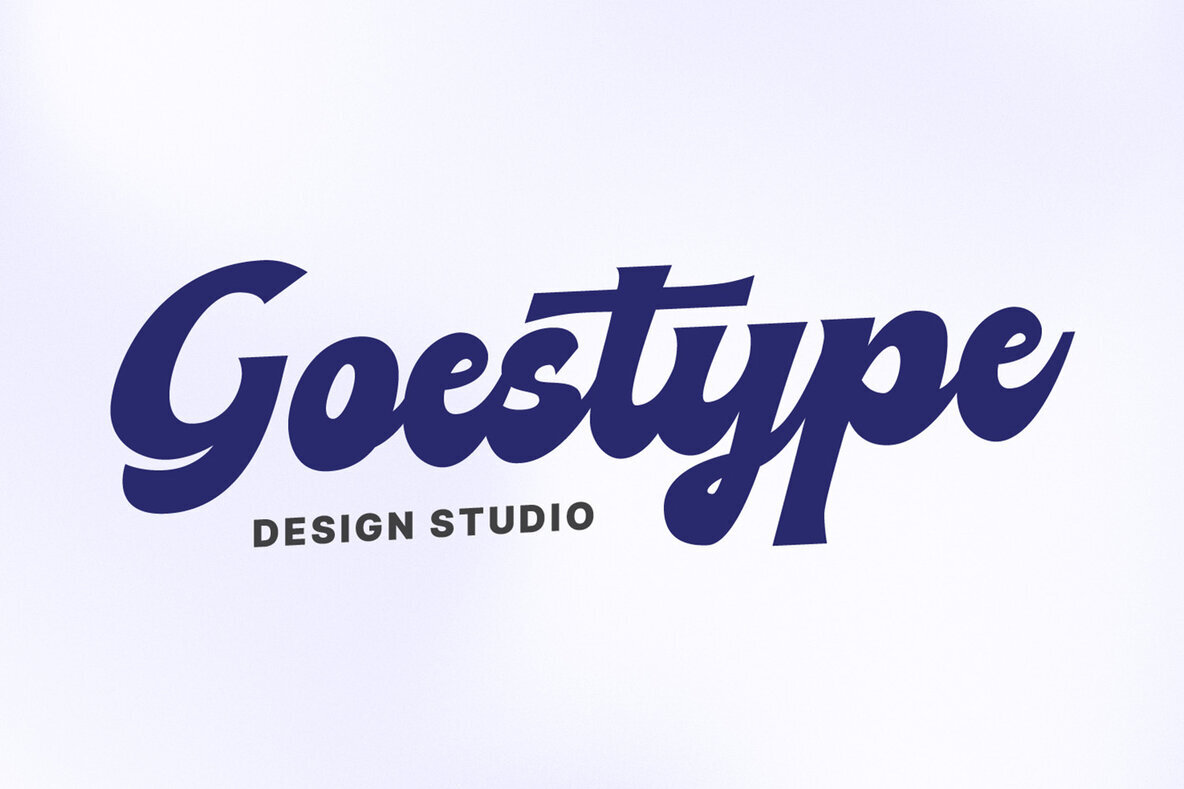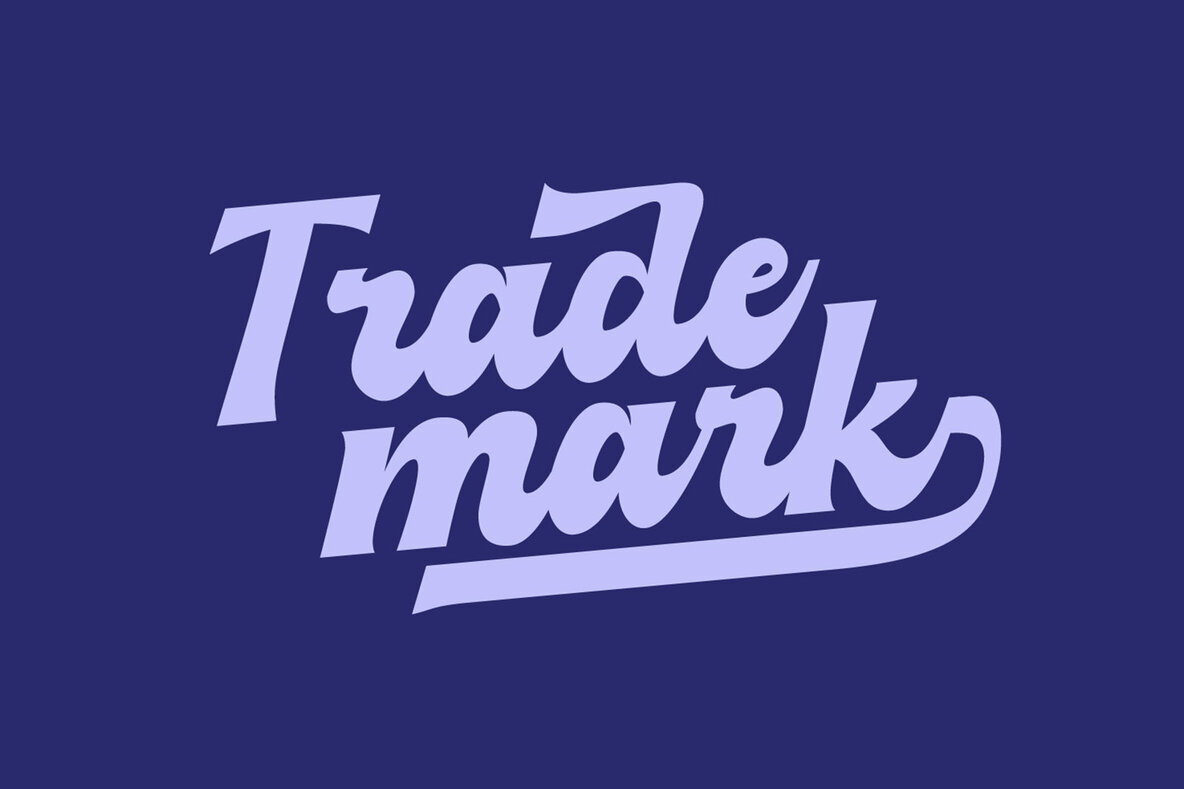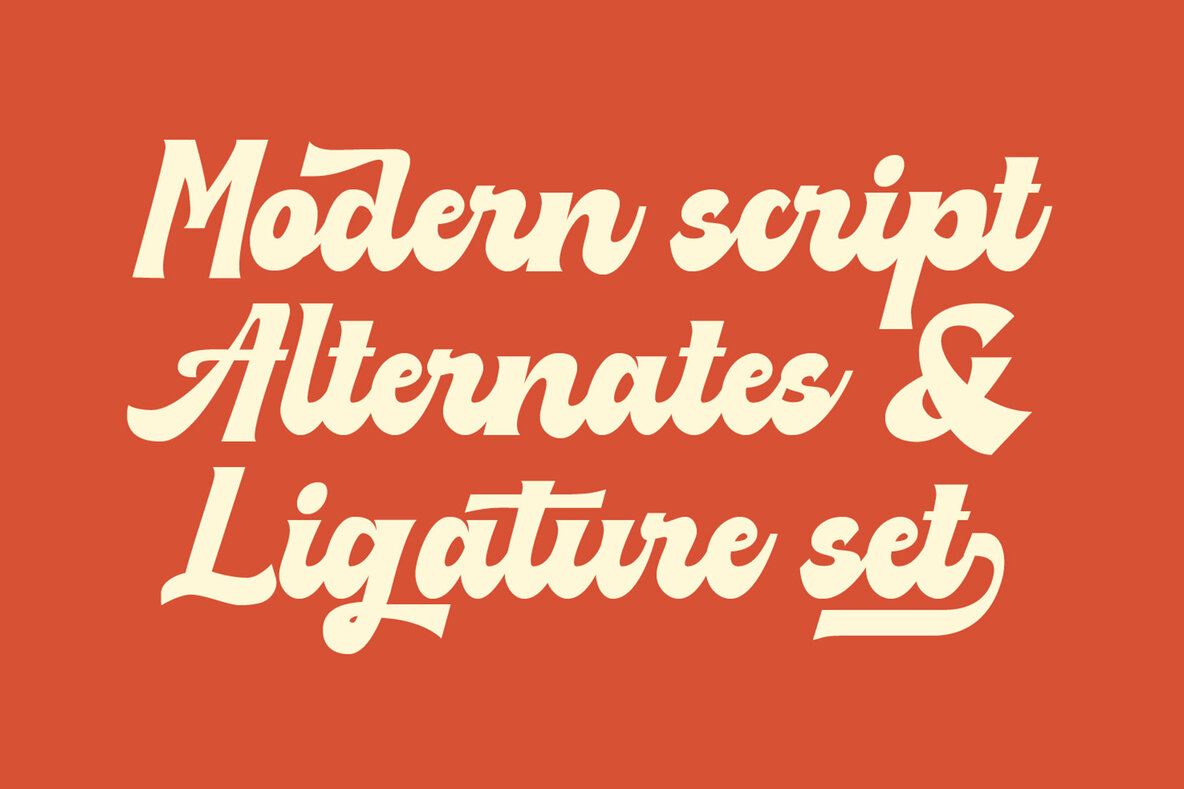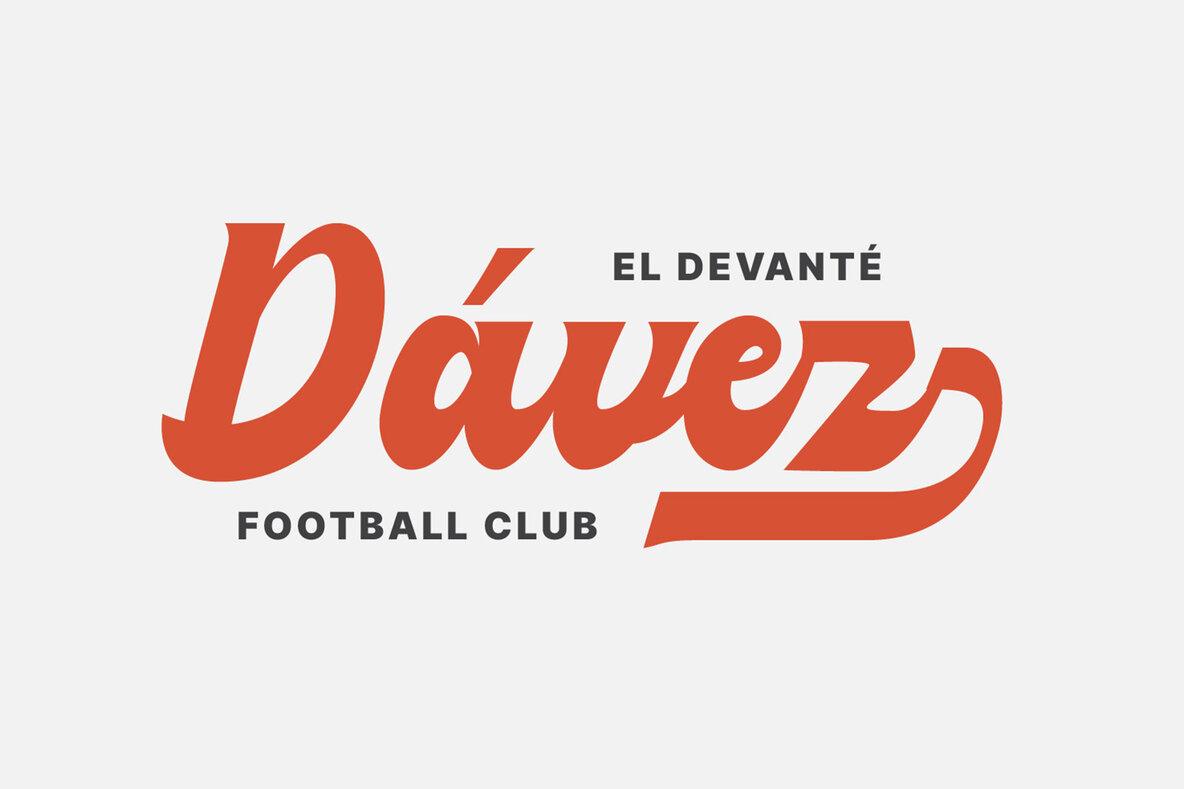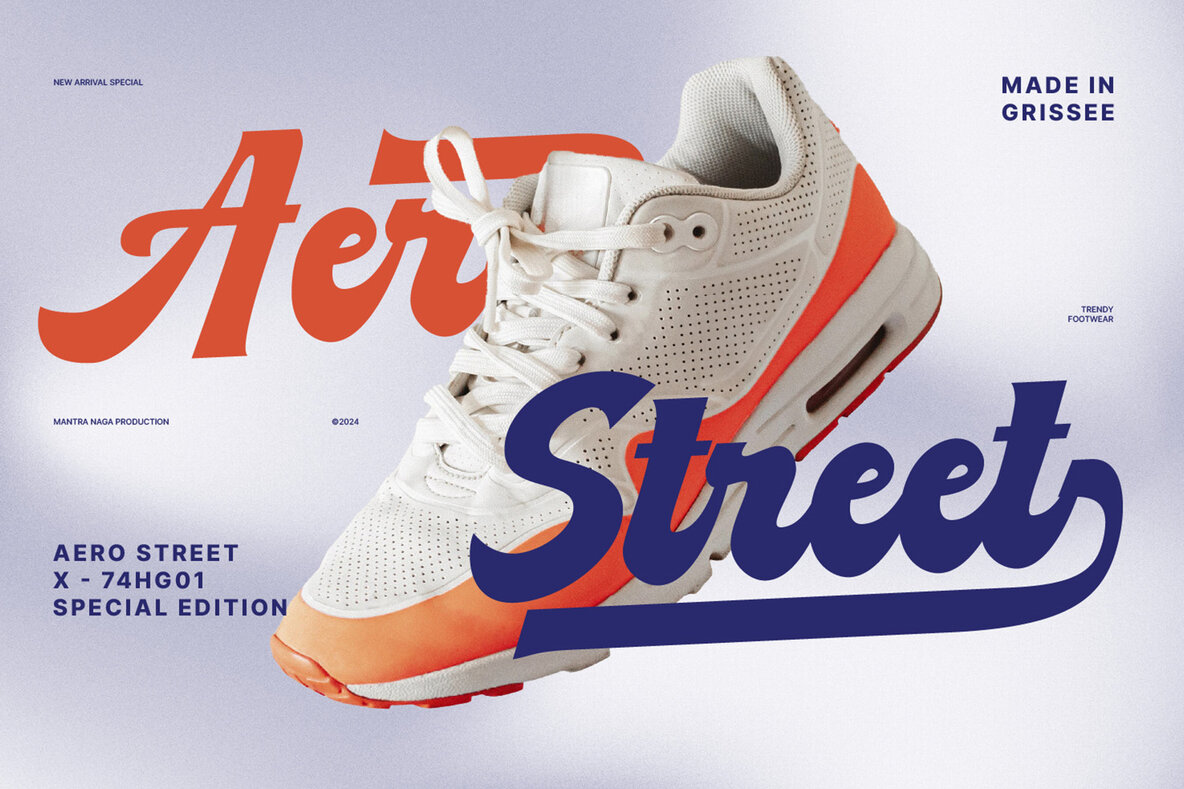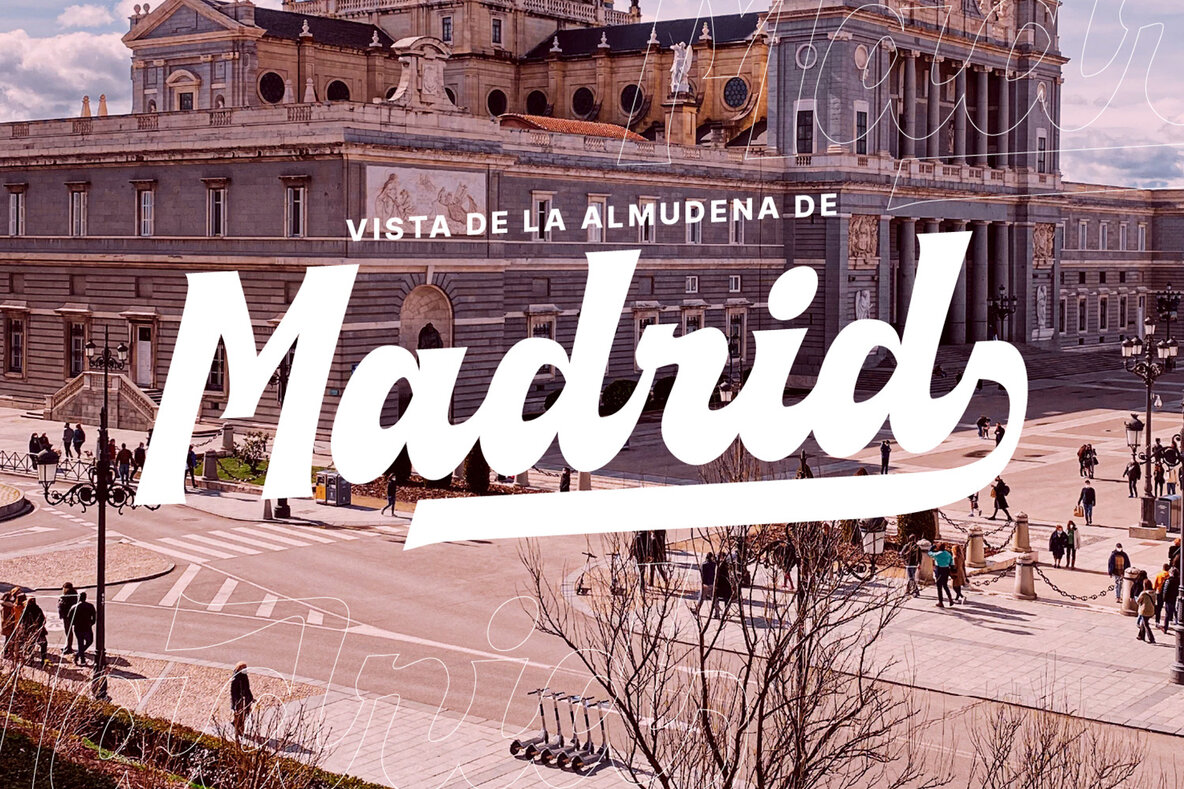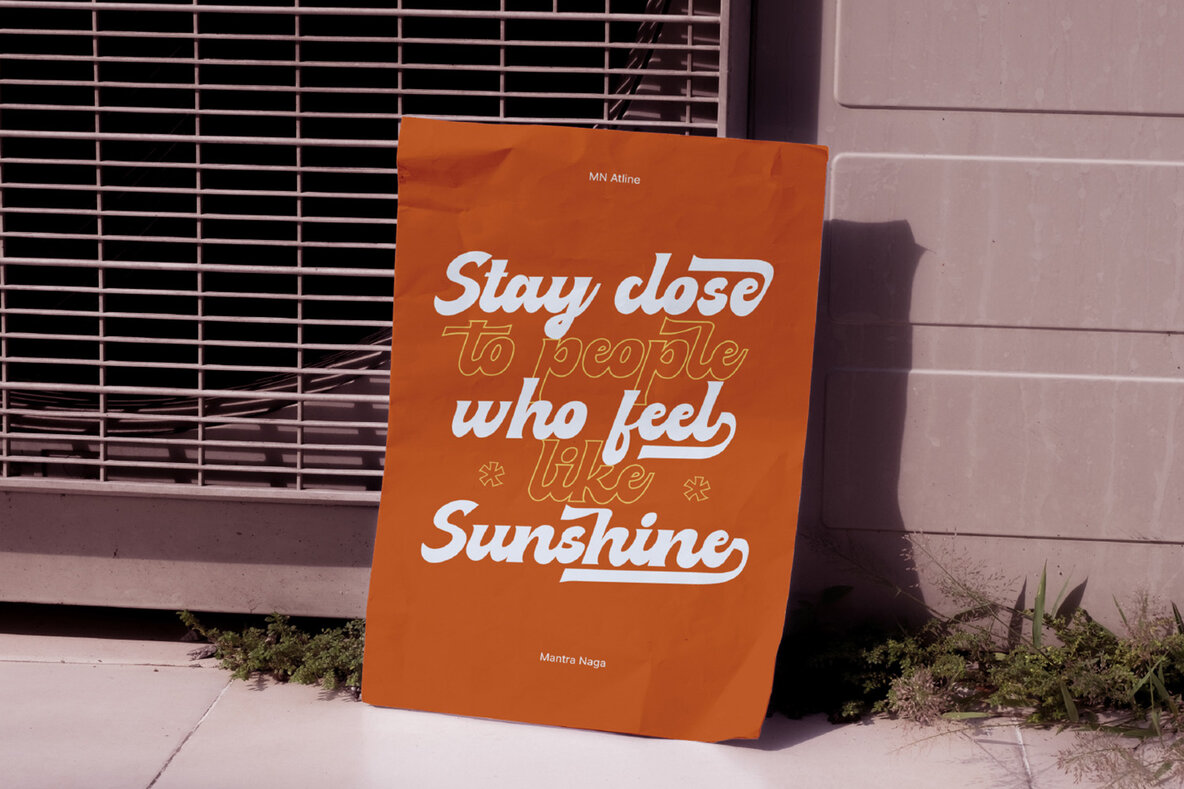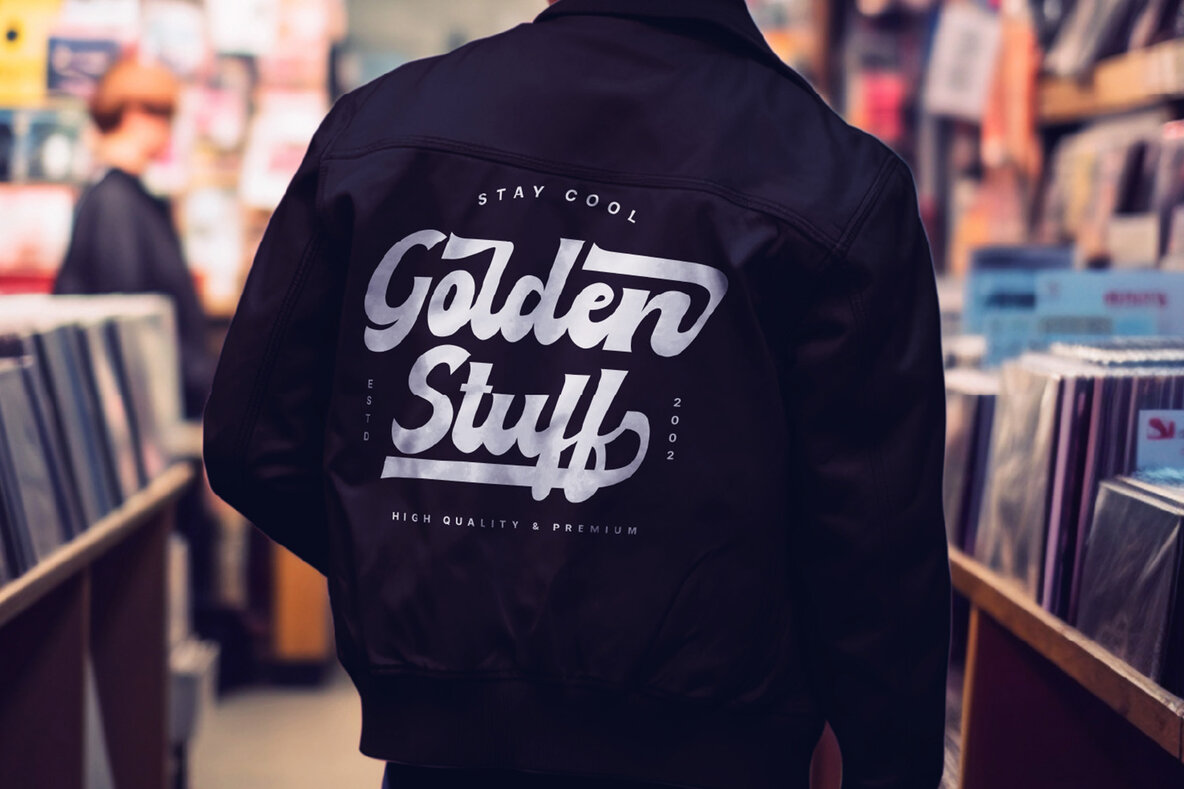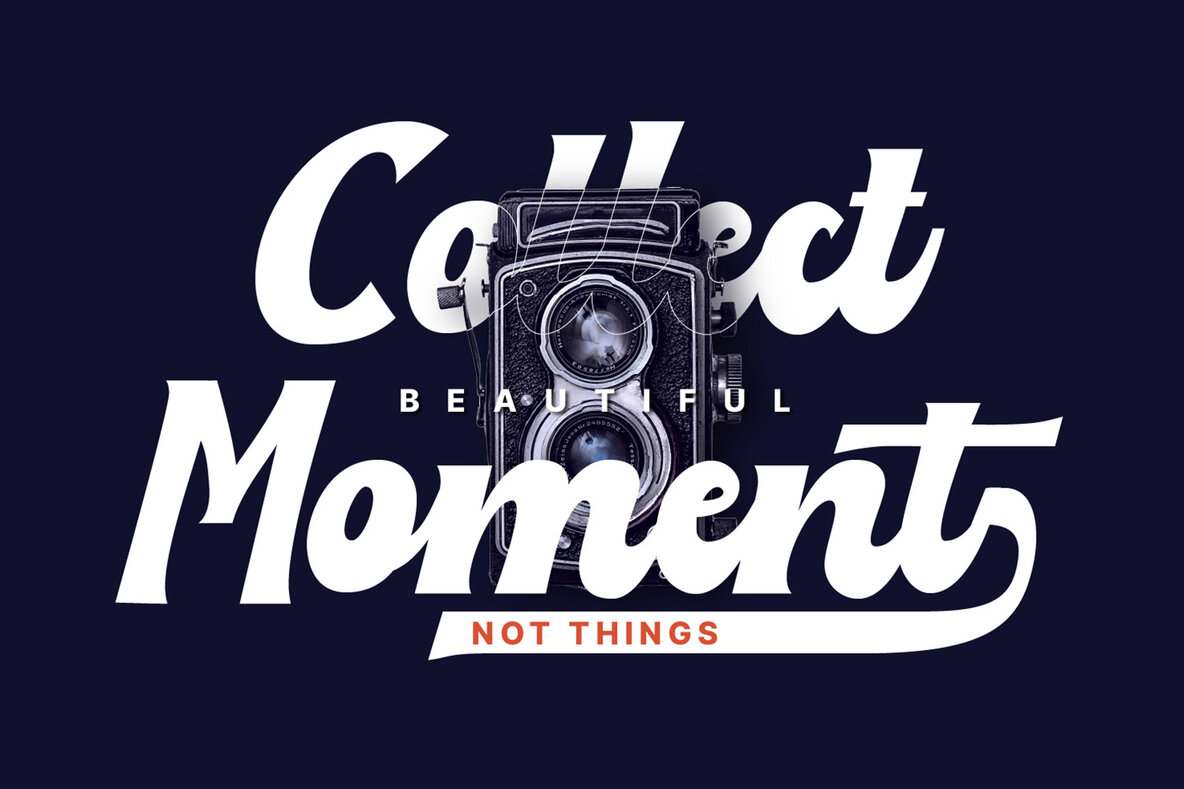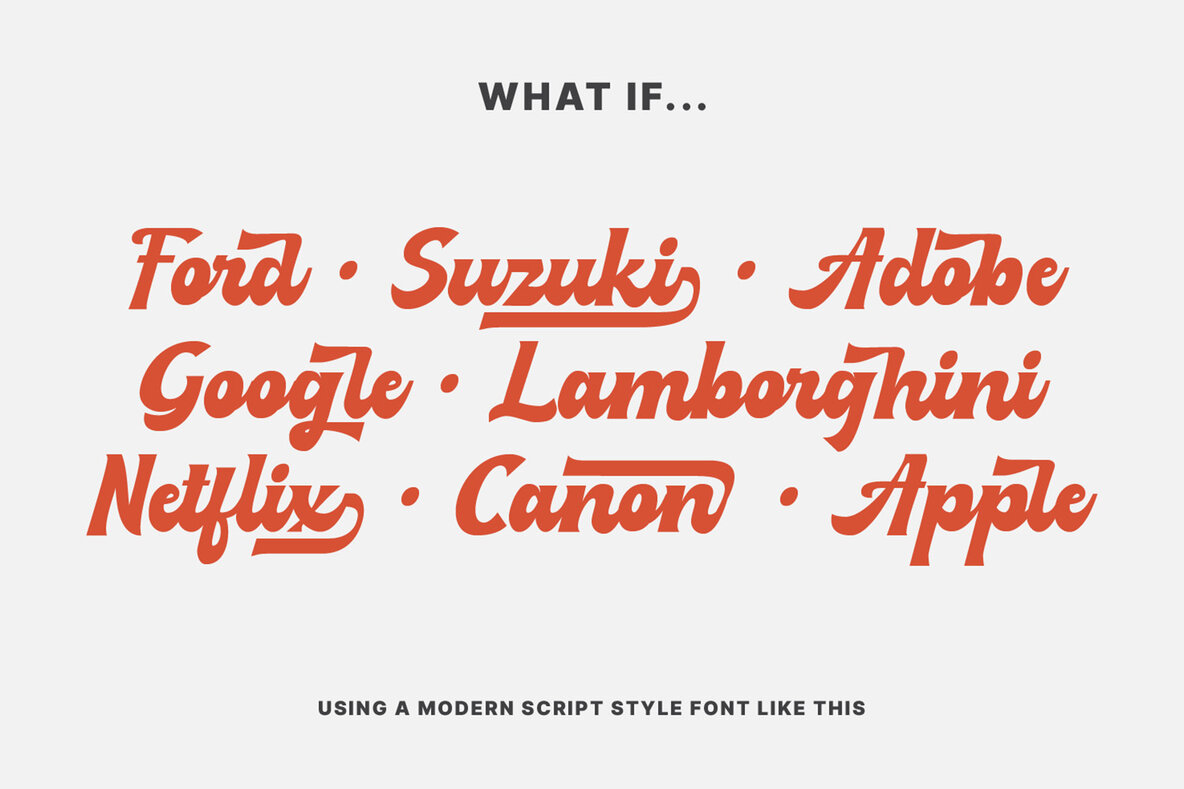
MN Atline Font
MN Atline Regular
MN Atline, a modern script font that blends sharp serif edges with fluid cursive forms, creating a fresh, contemporary, and utterly unique aesthetic. Ideal for logos, invitations like greeting cards, branding materials, business cards, quotes, posters, and much more, this font is designed to stand out. With support for up to 89 languages and OpenType features such as stylistic alternates, ligatures, and swashes at the end of words, MN Atline is versatile and perfect for a wide range of design projects.